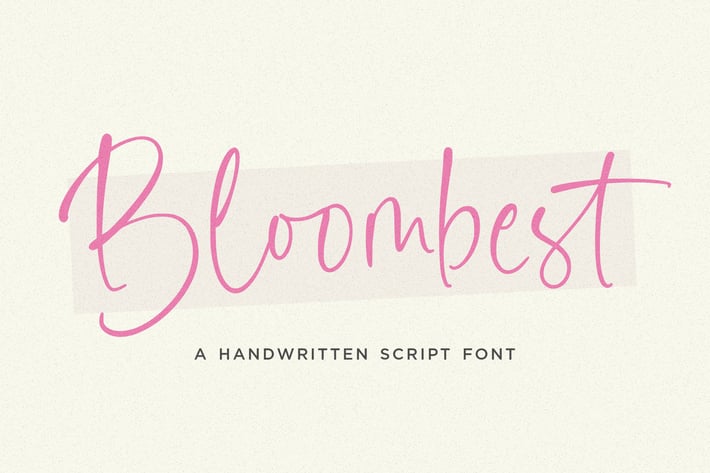
Bloombest - Handwritten Script Logo Font
Bloombest is a handwritten Script that's perfect for adding a personal touch to your design projects! With its natural, organic feel and unique character.
Crafted with care and attention to detail, this font is incredibly versatile and can be used for a range of design projects, including logos, branding, invitations, and more. Its modern, handwritten style gives it a unique character that's sure to make an impact.